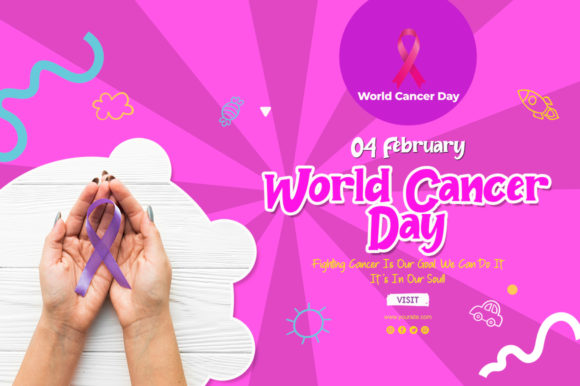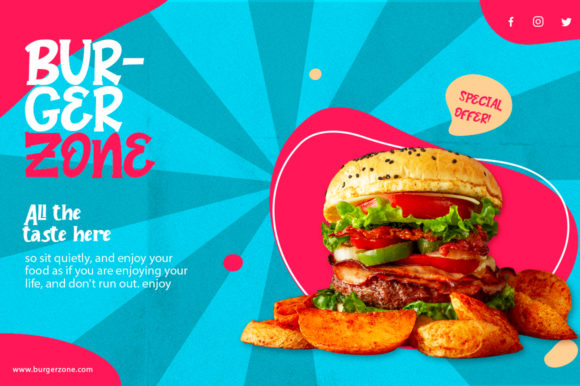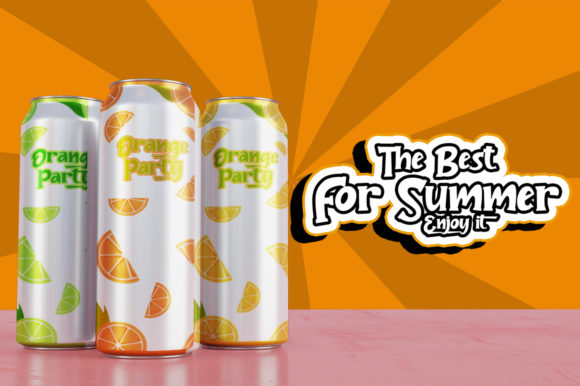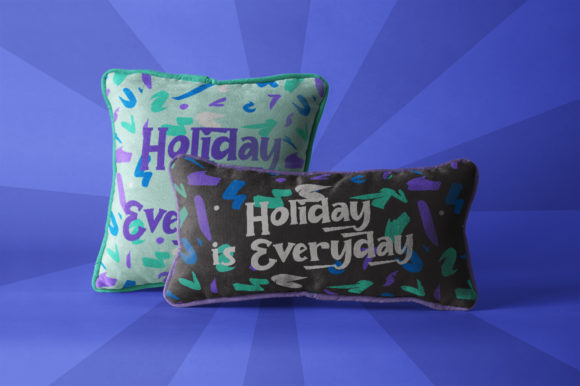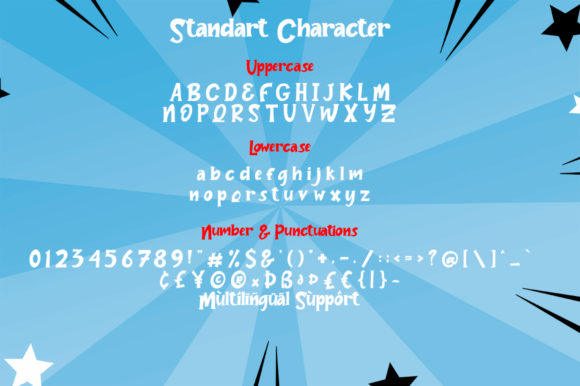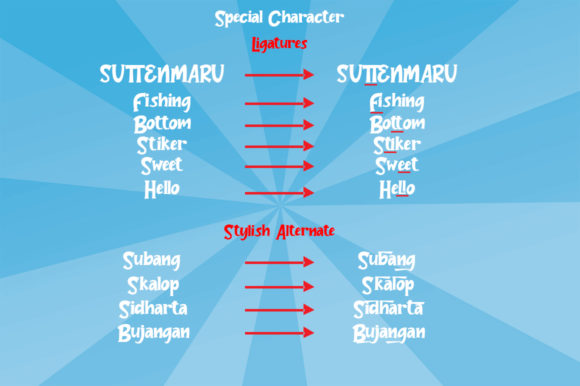
Introduction to Jelly Bomb Font
Have you ever found yourself stuck on a creative project, desperately searching for that perfect design element to bring it to life? For designers, it’s a familiar feeling – like trying to put together a puzzle without the right piece. But what if I told you there’s a solution that’s as sweet as it is effective? Enter the Jelly Bomb Font, a delightful display font that’s sure to add a pop of personality to your designs.
This charming font is more than just a pretty face; it’s a valuable resource for designers looking to elevate their creative projects. With its high-quality design and transparent background, it’s perfect for adding a playful touch to your designs without overwhelming the other elements. And the best part? It’s available for free download, making it a must-have for any design enthusiast.
Key Features of Jelly Bomb Font
- High-quality, hand-drawn design for a creative project, perfect as a design resource.
- Transparent background, allowing for easy customization and seamless integration.
- Unique, playful style with bold lines and vibrant colors, ideal for adding a fun touch to any design.
- Resolution-independent, ensuring crisp and clear rendering on any device or screen.
Honest Review: Jelly Bomb Font
I recently stumbled upon the Jelly Bomb Font, and I must say it’s a game-changer for any creative project. As a designer, I’m always on the lookout for high-quality fonts that can elevate my designs and make them stand out.
Here’s what I love about the Jelly Bomb Font:
- ✨ Its transparent background makes it super easy to use in various design scenarios, from digital to print.
- ✨ The font is incredibly versatile, suitable for both casual and formal designs, making it a great addition to any design resource.
- ⚠️ The font is quite bold, so it may not be suitable for designs that require a more subtle look.
- ⚠️ There aren’t many variations or styles to choose from, which might limit its versatility in certain design scenarios.
Overall, I’m really impressed with the Jelly Bomb Font. Its high quality and versatility make it a great addition to any design resource, and the free download is a major bonus. If you’re looking for a bold, eye-catching font for your next creative project, I’d definitely recommend giving the Jelly Bomb Font a try.
Tips for Getting the Most Out of Jelly Bomb Font
For the best results, use the Jelly Bomb Font on a transparent background to create a bold and eye-catching design. You can also experiment with different font sizes and colors to add depth and interest to your design.
The Jelly Bomb Font is ideal for use in creative projects such as party invitations, social media graphics, and promotional materials. Its unique and playful design makes it perfect for adding a fun and eye-catching touch to your design.